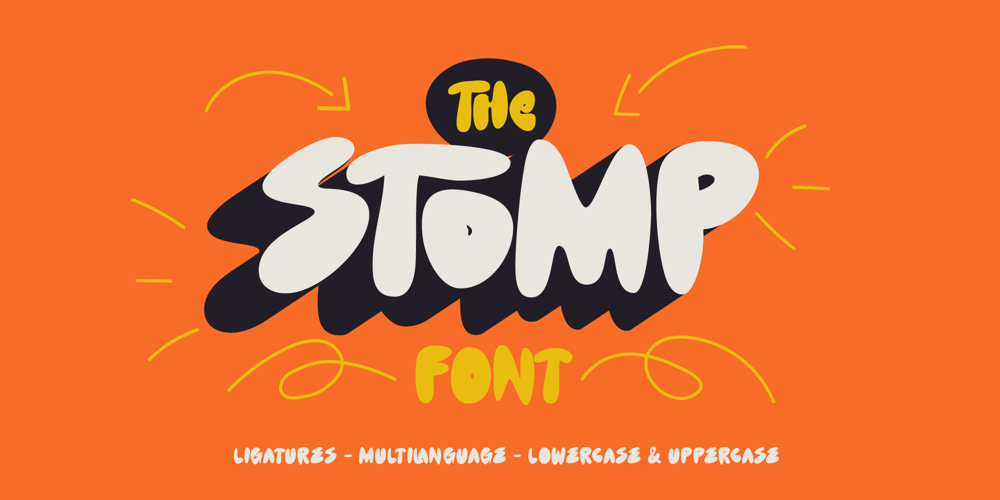
Fd Stomp Font Family was designed by Ramandhani Nugraha and published by Fortunes Co. Fd Stomp contains 1 styles and family package options. The Buble font dances on the page like bubbles in the air, playful and whimsical. Its rounded edges and buoyant curves evoke a sense of joy and lightness, infusing any text with a sense of cheerfulness. Each letter seems to float effortlessly, creating a sense of movement and liveliness. The font’s bubbly demeanor adds a touch of innocence and friendliness to any design, making it perfect for children’s books, invitations, or anything that requires a hint of whimsy. Its simplicity belies its versatility, as it can easily adapt to various styles and themes, ensuring a delightful reading experience for all.